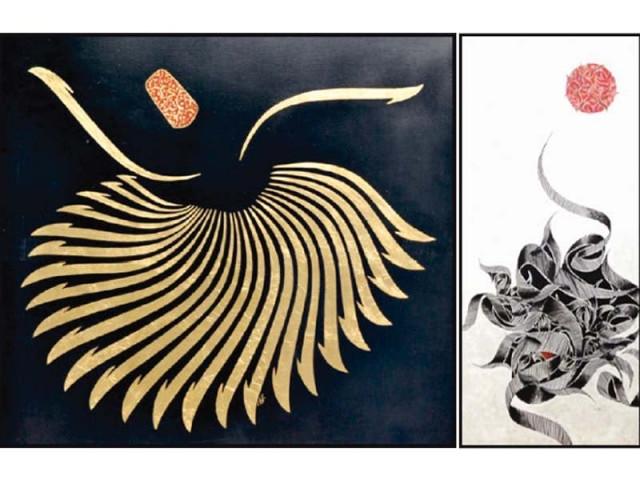
Now that’s calligraphy : When font and art combine to create perfection
As many as 12 artists showcase their talent at Quat show
LAHORE: Intricate calligraphy was the order of the day at the Quat Painting show as 12 artists showcased their deft touch, hoping to strike a balance between transmitting a text and expressing its meaning through a formal aesthetic code
Calligraphy artist Amir Kamal‘s work is a reproductions of texts from the Quran and Hadith and illuminates the traditional style of calligraphy using gold leaf. According to the artist, he mainly works on paper and wasli and recently started his traditional style on canvas.
Arif Khan, another artist, said his calligraphic pieces are like musical symphonies which go from low to high pitches, surprising the viewer. According to the artist, he subtly divides peace by writing small pieces around the focal point and fills it with a large word.
Calligraphist Jamshed Qaiser said his work is based on abstraction and reflection on traditional calligraphy.
According to Jamshed, he has taken inspiration from Iranian Calligraphic fonts as well as Shikasta and Moalla. “I have been working on traditional fonts including Nasta’aliq, Thuluth, Naskh, Dewani, Kufi  and more,” he said.
“My participation in abstract calligraphy workshops in Italy and France gave new direction to my artwork and I started amalgamating English abstract calligraphy with Arabic font, especially since I strongly believe in experimentation,” Jamshed added.
Javed Qamar’s work in brightly coloured calligraphy paintings, with several names of Allah inscribed in a globe, denoting the concept of God’s omnipotence. Qamar said his work speaks of God attributes which he considers most relatable.
Artist Muneeb Ali said letters are an expression, just like art. “These two are like forces of nature –embodiments of our emotion, our creative thought and ideas.”
His series called Huroof is an attempt to combine the brimming energy to these two elements and create something new out of them.
“My work is an attempt to create fusion of the sagacious wisdom behind text and the maddening passion of art,” Muneeb said.
He said that the idea behind the series was to capture beauty created by the embrace of art with letters and to preserve it on a canvas that lasts.
“The combination is made possible by merging the ancient knowledge of Islamic calligraphy with unorthodox innovations of today so that every new combination astounds people, be it a casual viewer or keen observer.”
Mussarat Arif uses the ‘kufi’ form of calligraphy in her works with a painterly touch. The artist said she produced calligraphic art which was governed by the principle of balance, proportion, rhythm and unity.
She incorporates various patterns and geometric designs in her work which are interwoven with the words of the Holy Quran.
According to her, the journey of self discovery motivated her to the creative a world of calligraphy using various types of mediums such as oils, acrylics, watercolours and pastels.